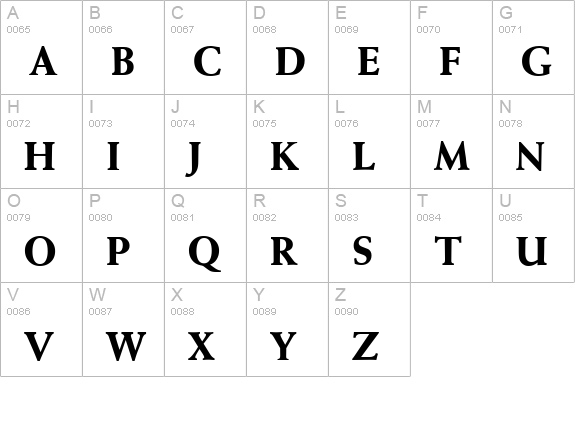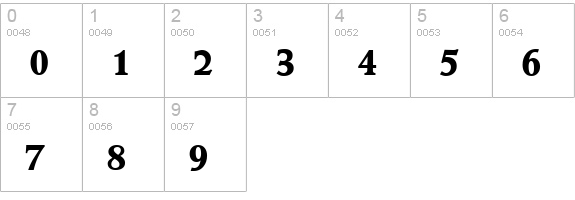
W690-Roman-Bold is a strong, high-contrast variant in the W690 typeface family \xE2\x80\x94 well suited to headlines, attention-grabbing titles, and strong calls-to-action.
The W690 Roman Bold font is a striking and versatile typeface that delivers a bold and impactful presence to any design project. With its strong and commanding letterforms, this font exudes confidence and professionalism, making it ideal for headlines, titles, and branding materials. The W690 Roman Bold font strikes the perfect balance between modernity and classic elegance, making it suitable for a wide range of applications. This font is freely available to download at FontsMarket.com, where designers and creatives can easily access this high-quality typeface to enhance their projects. Whether you're working on a website, poster, logo, or any other design project, the W690 Roman Bold font will help you make a bold statement and leave a lasting impression on your audience. Embrace the power and versatility of this font to elevate your designs to the next level.